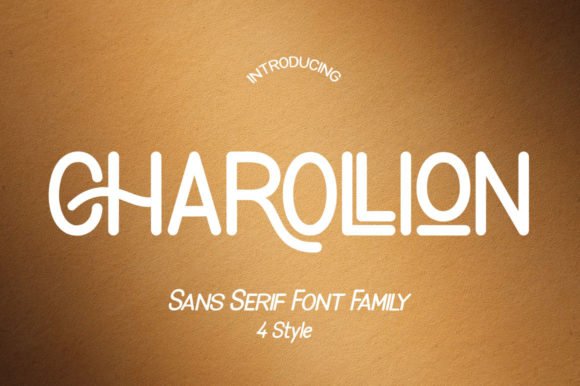
Enter the Charollion Font, a stunning sans serif font that adapts seamlessly to any topic or theme. Whether you’re crafting a logo, creating a brochure, or designing a website, this elegant font is sure to elevate your creations to the next level. With its versatility and sophistication, the Charollion Font is an invaluable asset to any designer’s library.
What sets the Charollion Font apart is its PUA encoding, allowing you to access all of its glyphs and swashes with ease. This means you can unlock the full potential of this incredible font and take your designs to new heights.
Charollion Font Key Features
- Size: The font is available in multiple weights, ranging from Light to Extra Bold, with each weight offering a unique character set.
- Unique Characteristics: The font features a distinctive, elegant design with refined lines and subtle flair, making it suitable for use in high-end branding, publishing, and advertising applications.
- Language Support: Charollion Font supports a wide range of languages, including Latin, Cyrillic, and Greek, making it a versatile choice for global branding and publishing projects.
- Kerning and Ligatures: The font includes advanced kerning and ligature pairs, ensuring that text sets are beautifully rendered and visually appealing.
Charollion Font Review
First off, I want to say that Charollion Font is a solid choice for designers looking for a sans-serif font. The clean lines and minimalistic design make it a great fit for modern branding and digital projects ✨.
The font is highly legible and works well in a variety of contexts, from body text to headings. It’s also quite versatile, with a wide range of weights and styles available to suit different design needs ✨.
- Legibility: Charollion Font is highly legible, making it a great choice for body text and long blocks of text.
- Customization: The font offers a wide range of weights and styles, making it easy to customize to suit different design needs.
- Modern feel: Charollion Font has a clean, modern aesthetic that’s perfect for contemporary branding and digital projects.
- Lack of personality: While Charollion Font is a solid choice, it’s not particularly distinctive or memorable. It’s a safe bet, but it may not stand out in a crowded design landscape ⚠️.
- Not ideal for script-heavy designs: Charollion Font is a sans-serif font, which may not be the best choice for designs that feature a lot of script or handwritten elements ⚠️.
Overall, Charollion Font is a solid choice for designers looking for a clean, modern font. While it may not be the most distinctive or memorable option, it’s a reliable choice that’s sure to please ✨.
Charollion Font Guide
The Charollion font is a modern sans-serif font that can be used for a variety of purposes, from branding and advertising to editorial and educational content.
Tips for Getting the Most Out of Charollion Font
Here are some tips for getting the most out of the Charollion font:
- Use the Charollion font in combination with other modern sans-serif fonts for a clean and professional look.
- Use the Charollion font in headings and subheadings to create a clear hierarchy of information.
The Charollion font is commonly used in